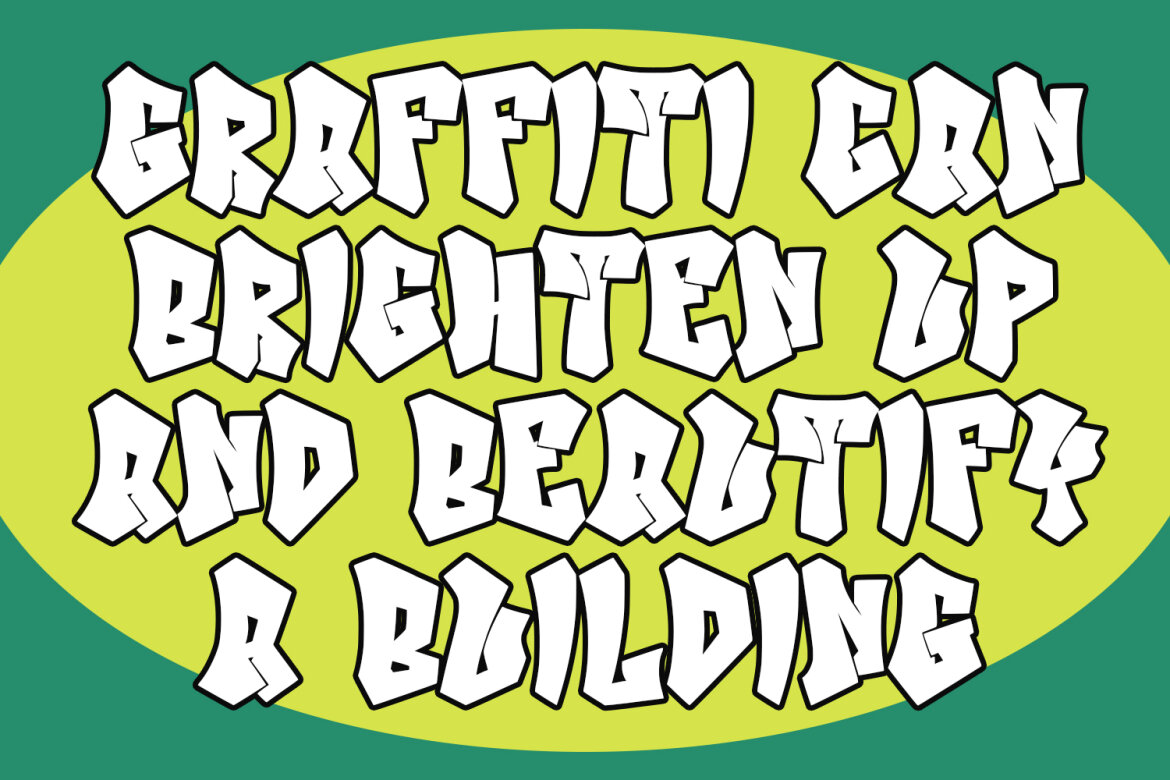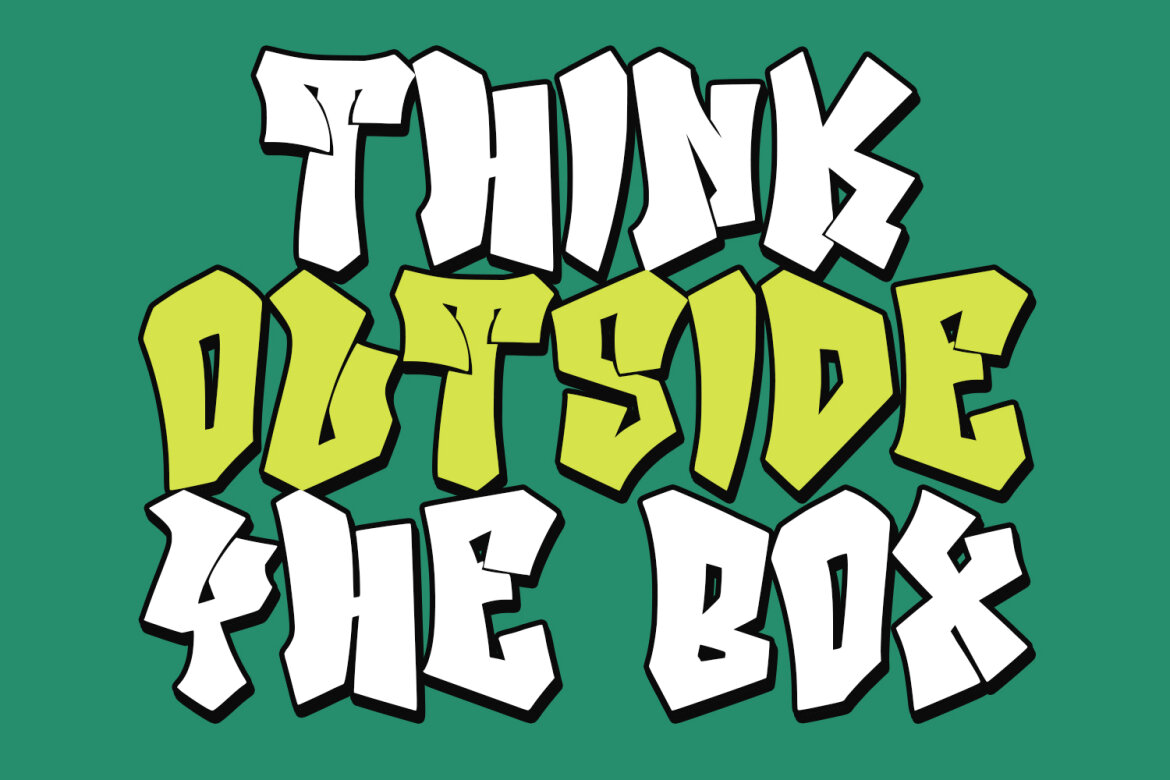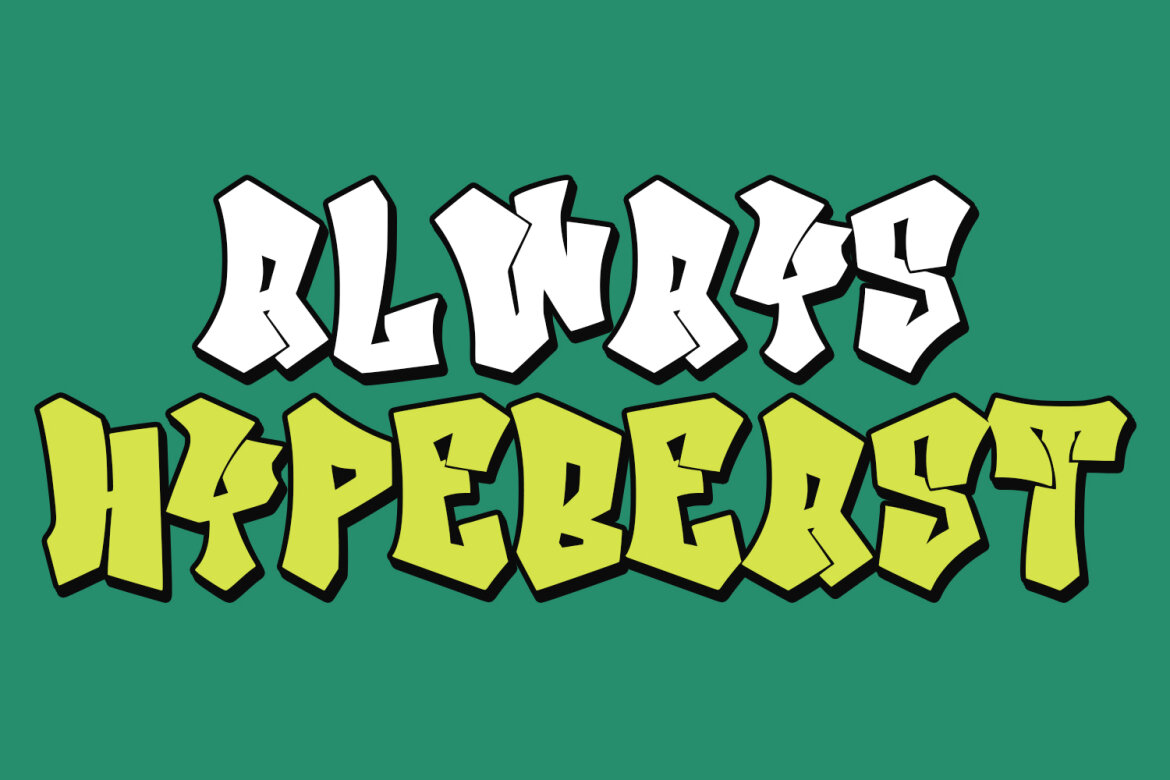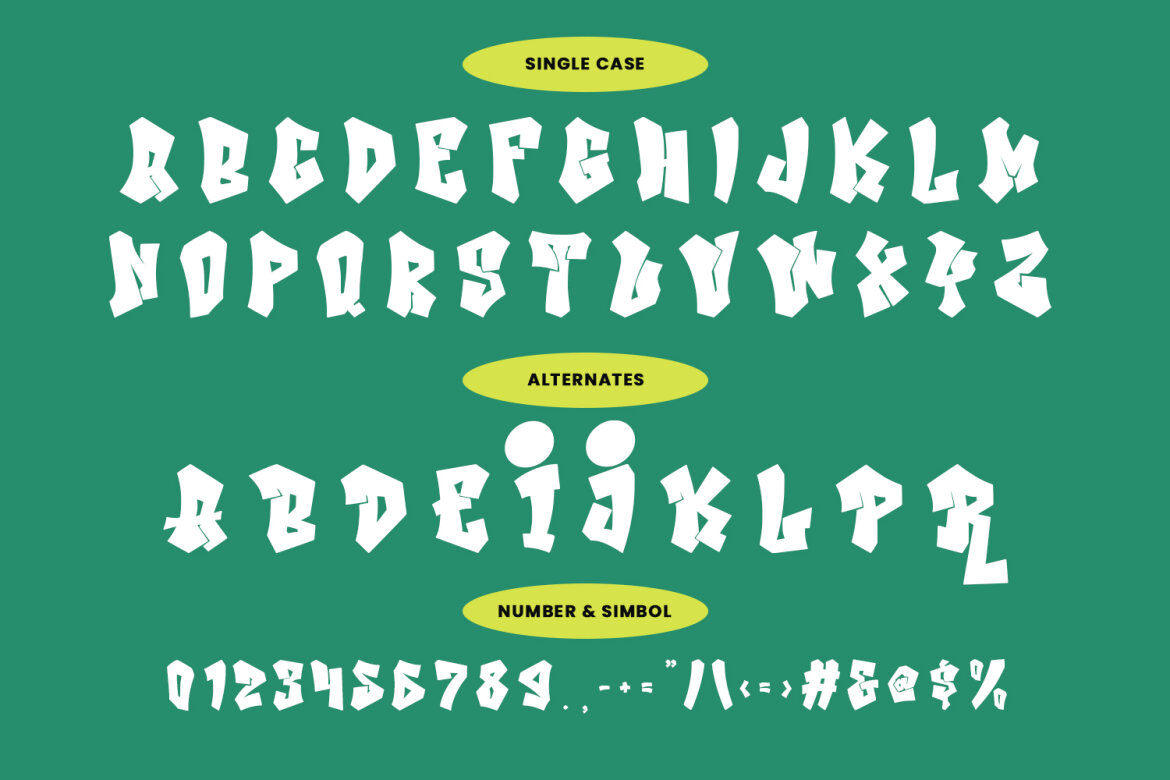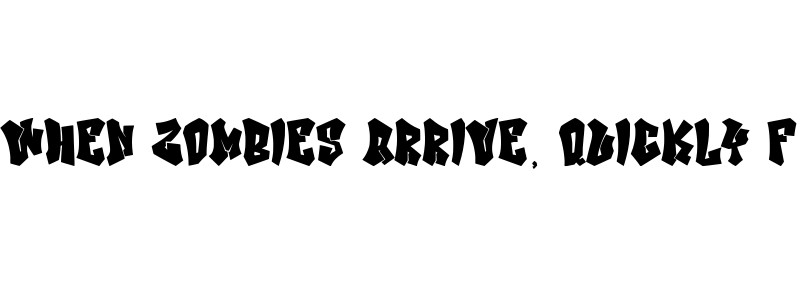
Emurica Graffiti FREE Display Font
Emurica graffiti display font. Bold stroke, fun character with a bit of ligatures and alternates. To give you an extra creative work. Emurica font support multilingual more than 100+ language. This font is good for logo design, Social media, Movie Titles, Books Titles, a short text even a long text letter and good for your secondary text font with script or serif. Make a stunning work with Emurica font.